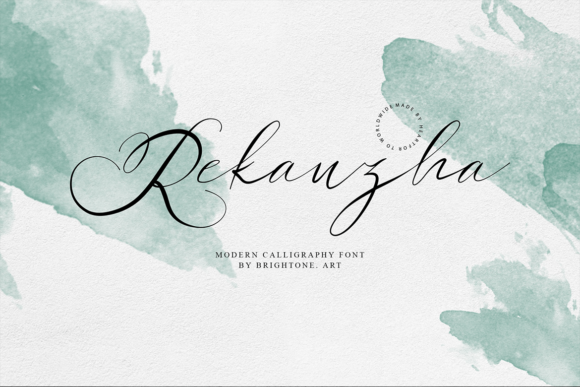
Rakanzha Script: Mastering Brand Identity with Natural Flow
There is a specific moment in every design project where the typography either breathes life into the layout or suffocates the message. When you are working on a logo design, a t-shirt graphic, or a high-converting social media post, the typeface needs to do more than just sit there; it needs to perform. This is where the Rakanzha Script enters the conversation. It is not just another script font floating in the sea of digital design assets. It is a distinct voice that balances the raw energy of a handwritten font with the structural integrity required for professional branding.
If you have ever struggled to find a typeface that feels personal without looking messy, or calligraphic without looking like a wedding invitation from 2010, Rakanzha Script offers a compelling solution. It bridges the gap between modern typography trends and timeless artistic expression. For designers, entrepreneurs, and content creators, understanding how to wield this font effectively can transform a generic layout into a memorable brand identity.
The Anatomy of Authenticity
What makes Rakanzha Script stand out in a crowded marketplace of premium fonts? It comes down to the details of its construction. As a natural and calligraphic script font, it mimics the irregularities and flow of actual penmanship. Unlike rigid geometric typefaces, Rakanzha has a heartbeat. The swashes are expressive, the baseline has a gentle movement, and the letter connections feel organic rather than forced.
This visual style is crucial for brands that want to appear approachable. In the world of modern typography, there has been a massive shift away from sterile, corporate aesthetics toward designs that feel human. Rakanzha Script fits perfectly into this shift. It possesses a personality that is confident yet relaxed. It does not scream for attention with aggressive angles; rather, it invites the viewer in with fluid curves and elegant strokes. For a small business owner or a crafter, this font acts as a visual handshake—it establishes trust and personality before the customer even reads the copy.
Strategic Applications: From Digital Screens to Physical Products
Understanding the visual character of Rakanzha Script is one thing; knowing where to deploy it is another. This is a versatile display font, but it shines brightest in specific scenarios where emotional connection is the priority.
Dominating Social Media
In the fast-paced scroll of Instagram or TikTok, you have milliseconds to capture attention. Rakanzha Script is an exceptional tool for Instagram posts and stories. Its high-contrast strokes and distinct style make it perfect for headlines, pull quotes, or call-to-action overlays. Because it is a creative font with high visual appeal, it stops the scroll. However, because it is a script font, it pairs beautifully with a clean sans serif font for the body text, ensuring your message remains readable while the header grabs the eye.
Branding and Logo Design
For logo design, Rakanzha Script offers a distinct advantage for brands in the lifestyle, fashion, beauty, and food sectors. It suggests a level of craftsmanship. If you are branding a boutique coffee shop, a handmade jewelry line, or a personal coaching business, this font communicates care and quality. It suggests that there is a human behind the brand, not just an algorithm. It works exceptionally well for logos that need to stand out on merchandise, specifically t-shirt design and lettering design, where the typography often stands alone as the art.
Packaging and Editorial Design
Think about the shelf appeal of a product. In packaging design, the label needs to communicate the essence of the product instantly. Rakanzha Script adds a touch of elegance and nature to product labels. Whether it is a bottle of artisanal hot sauce or a jar of organic face cream, the font elevates the perceived value of the item. Similarly, in editorial design, such as magazine headers or blog graphics, it can be used to break up the monotony of standard serif font and sans serif font blocks, adding rhythm to the page layout.
Mastering the Pairing and Hierarchy
One of the most common mistakes creatives make with script fonts is using them incorrectly in a typographic hierarchy. Because Rakanzha Script is a display font with a lot of character, it should rarely be used for long paragraphs. Doing so creates visual fatigue and hurts readability.
Instead, treat Rakanzha Script as your "accent" typeface. Use it for the H1 headers, the sub-headers, or specific keywords you want to emphasize. To support it, you need a strong partner. A geometric sans serif font works wonders here. The clean, straight lines of a sans serif create a beautiful contrast with the organic, curved nature of the script. Alternatively, pairing it with a sturdy serif font can create a classic, timeless look suitable for high-end branding.
When testing font pairings, pay attention to weight and size. Rakanzha Script usually looks best when given room to breathe. If you crowd it with too much text or place it too close to other elements, you lose the elegance of the swashes. Give it space. Let the white space around the text highlight the natural flow of the lettering.
By using this typeface, you are choosing to step away from the generic and embrace the specific. You are telling your audience that you value aesthetics and that you care about the details. Whether you are designing a logo for a new startup, creating graphics for a blog, or labeling a product for the local market, Rakanzha Script provides the visual flair needed to make a lasting impression. It is a reminder that in a digital world, the human touch still reigns supreme.